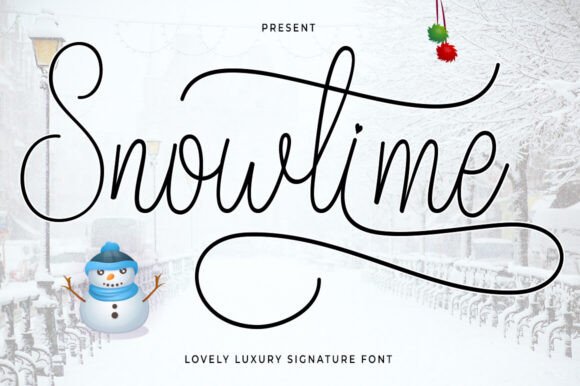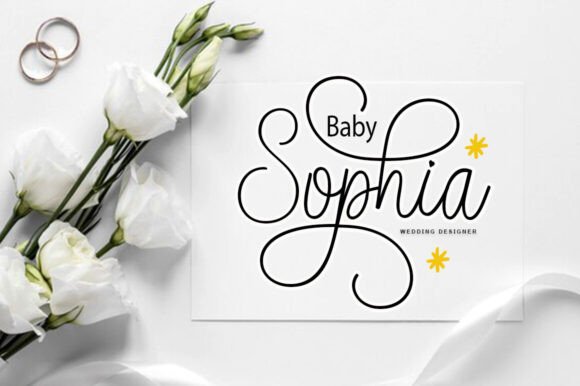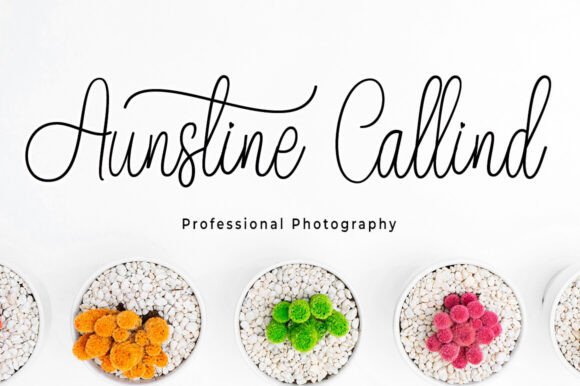
Snowtime Font: Elegant Signature Script for Wedding & Craft Design
About the Snowtime Font
Meet Snowtime Font, a stunning font that brings a touch of elegance and professionalism to any design. Snowtime is a lovely signature font that boasts sophisticated charm with its delicate curves and flowing lines. Ideal for enhancing the elegance of wedding invites, crafts design, logotype, print design, social media graphics, or branding materials, it adds a touch of refinement to any project. It is also PUA encoded which means you can access all of the glyphs and swashes with ease!
Snowtime Font Usage Examples
Snowtime Font Example